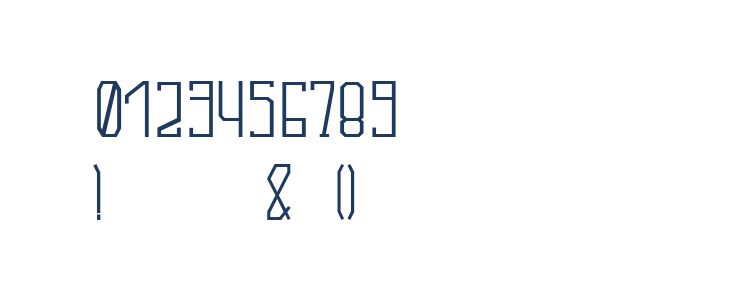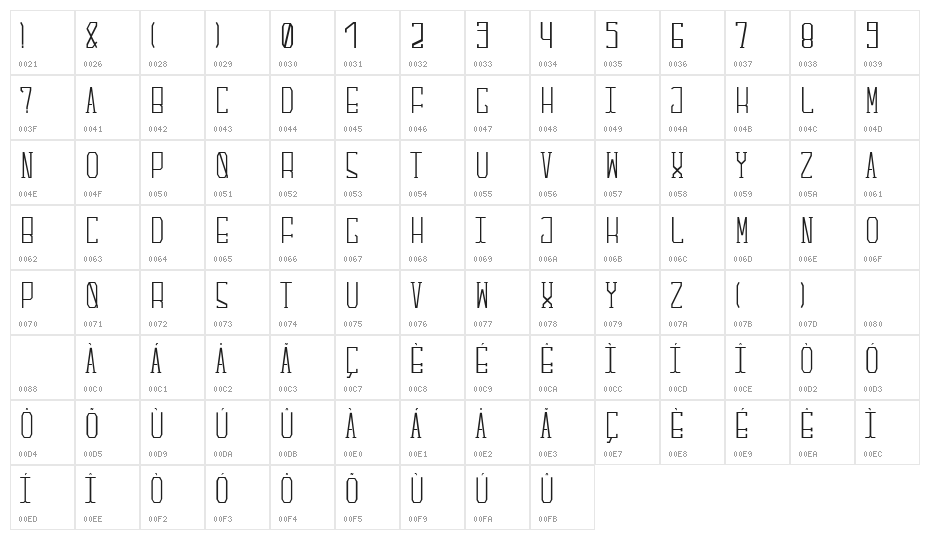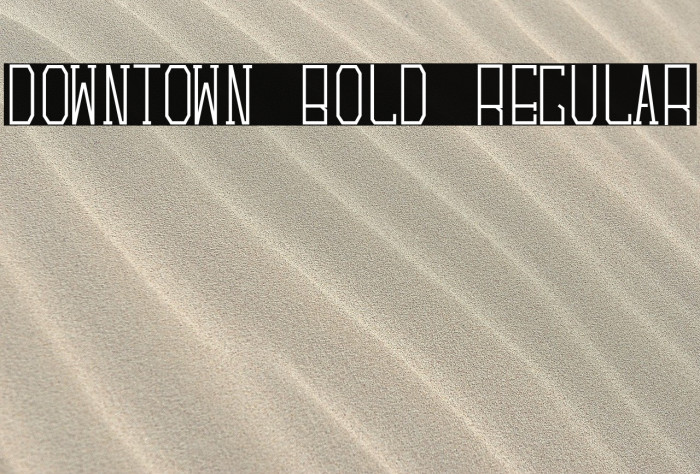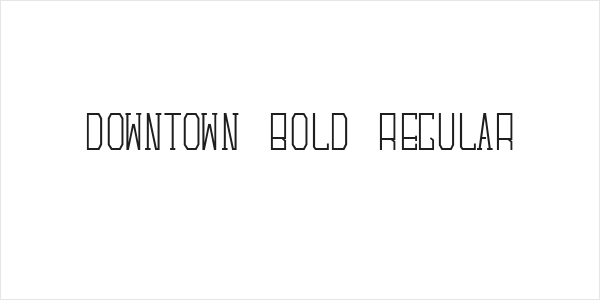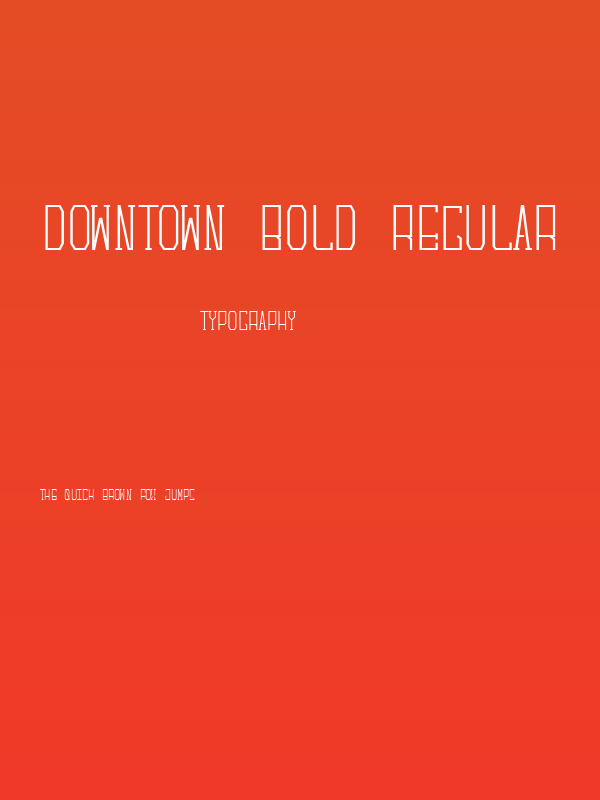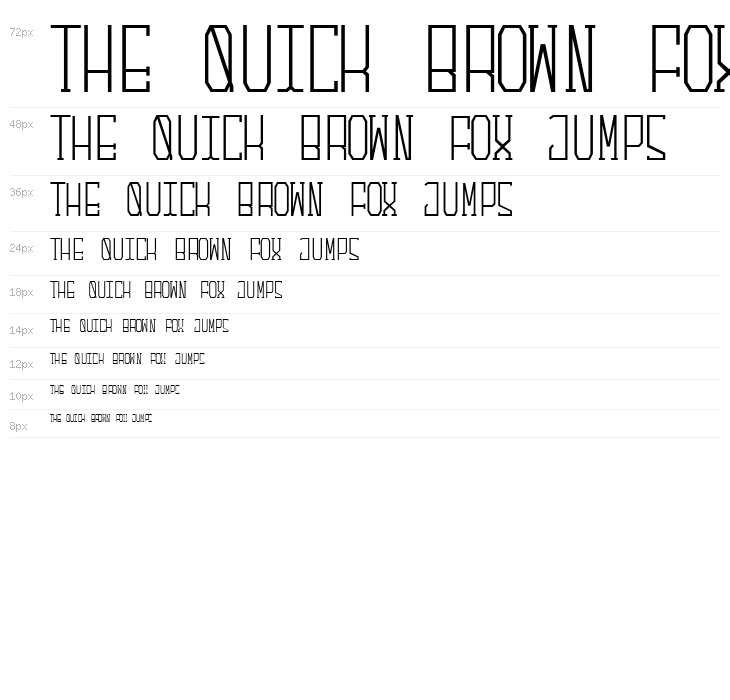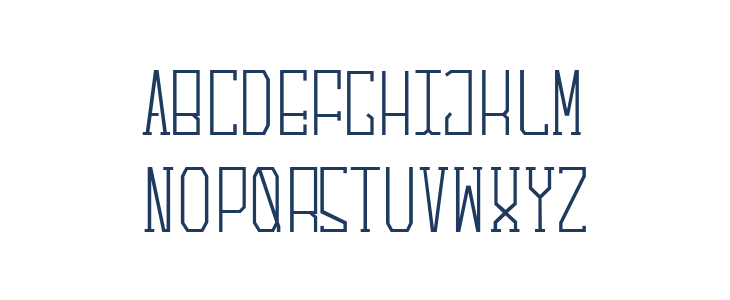
Downtown Bold Regular Font
Downtown Bold Regular Description
This font features a unique and modern geometric design with a bold presence. The characters are constructed with straight lines and sharp angles, giving it a futuristic and industrial feel. The uppercase letters are particularly striking, with some characters incorporating unexpected cuts and angles that add to the font's distinctiveness. The numbers and special characters maintain this geometric style, ensuring consistency across the typeface. The overall appearance is clean and structured, making it suitable for projects that require a contemporary and edgy look.